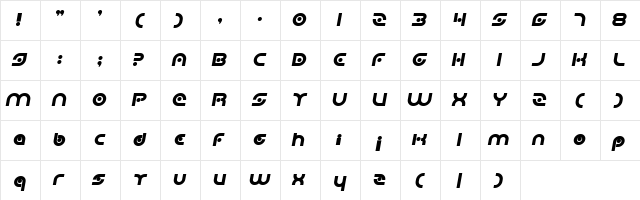
Planetary Orbiter Bold Italic Free Font
Planetary Orbiter Bold Italic
Complete Planetary Orbiter Bold Italic glyph index. Displaying only characters natively supported by Planetary Orbiter Bold Italic font.
Design Context for Planetary Orbiter
Planetary Orbiter is a composed and adaptable typeface that performs quietly and consistently across a wide range of design contexts. The slanted form adds forward momentum and visual energy. Its bold stroke weight gives it real presence on the page.
Pro Tip: Use Planetary Orbiter for emphasis, pull quotes, and subheadings where its slanted energy can add rhythm to the layout.